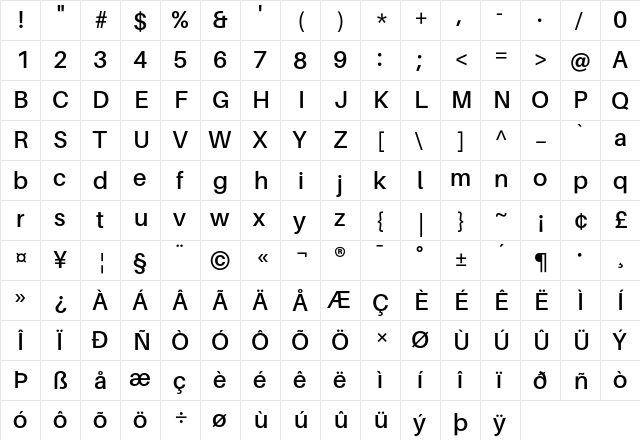
Aileron SemiBold Regular
| Foundry | Sora Sagano |
| Designer | Sora Sagano |
Design Context for Aileron SemiBold Typeface
Aileron SemiBold takes a measured approach to typography — its balanced proportions and neutral character make it a reliable workhorse for both digital and print work. The heavy weight commands attention and anchors typographic hierarchies.